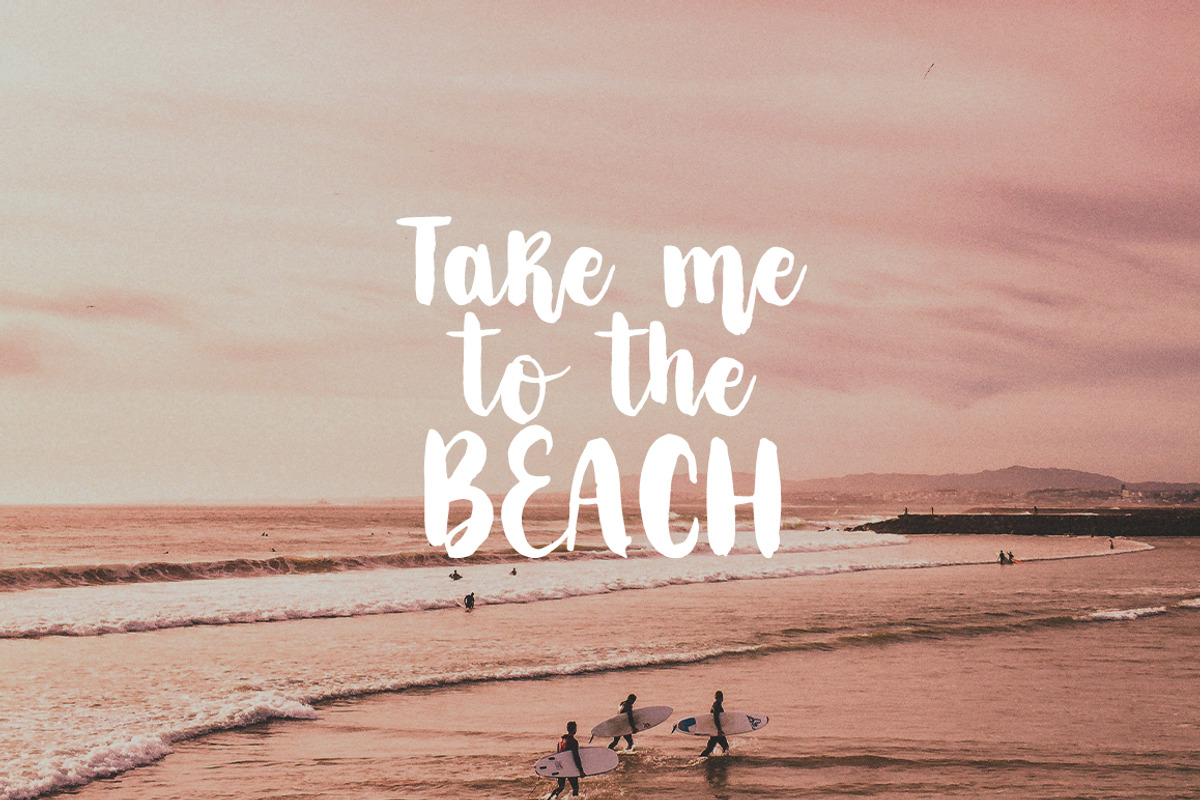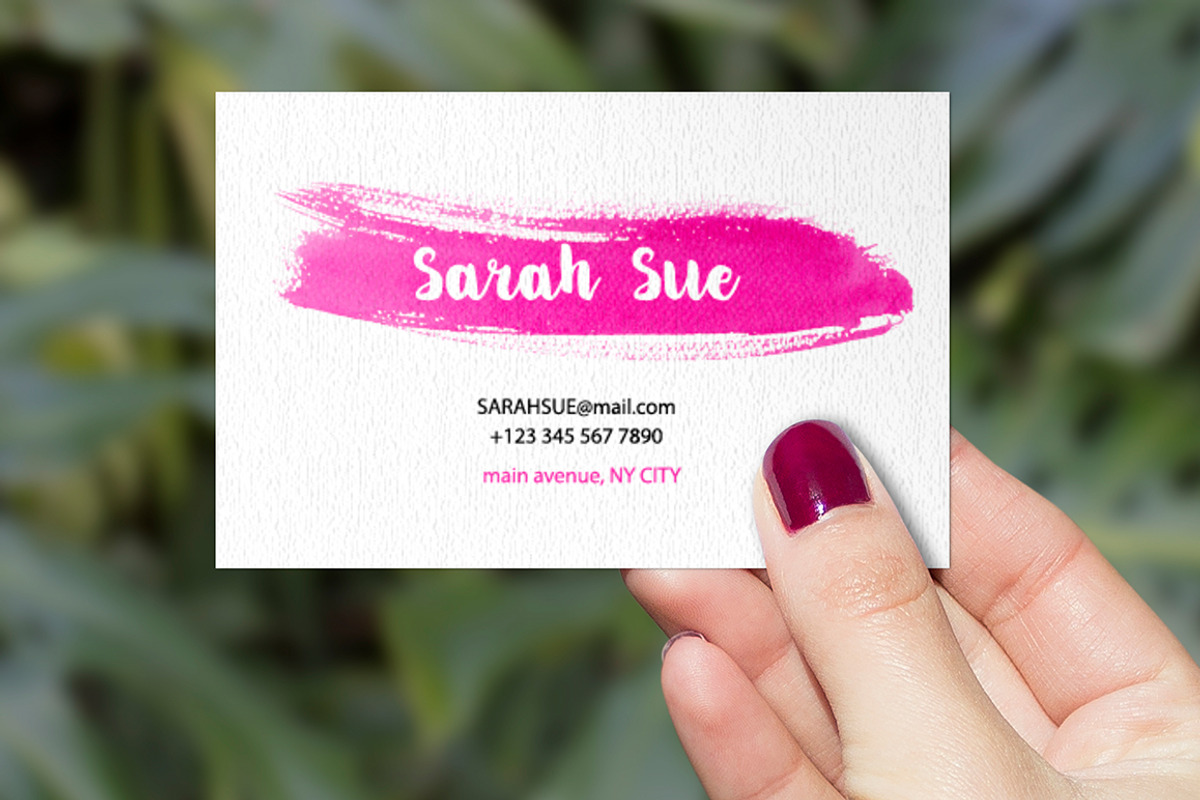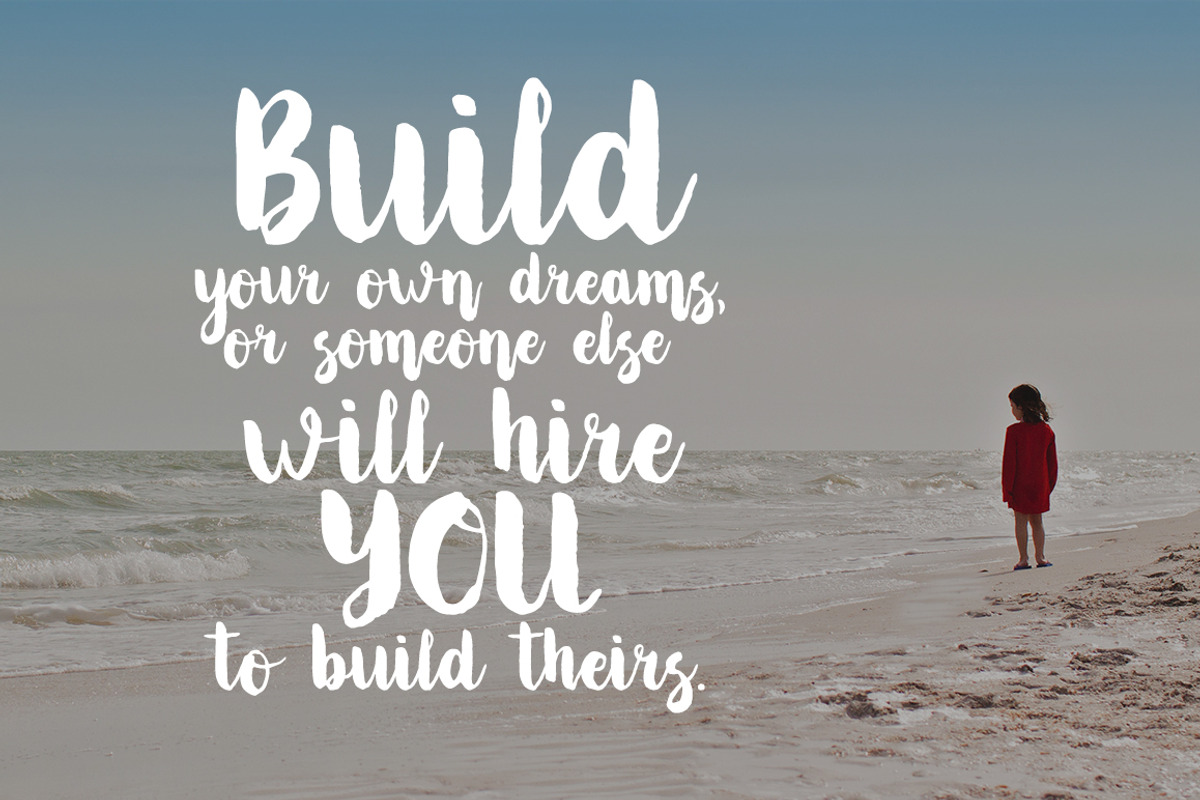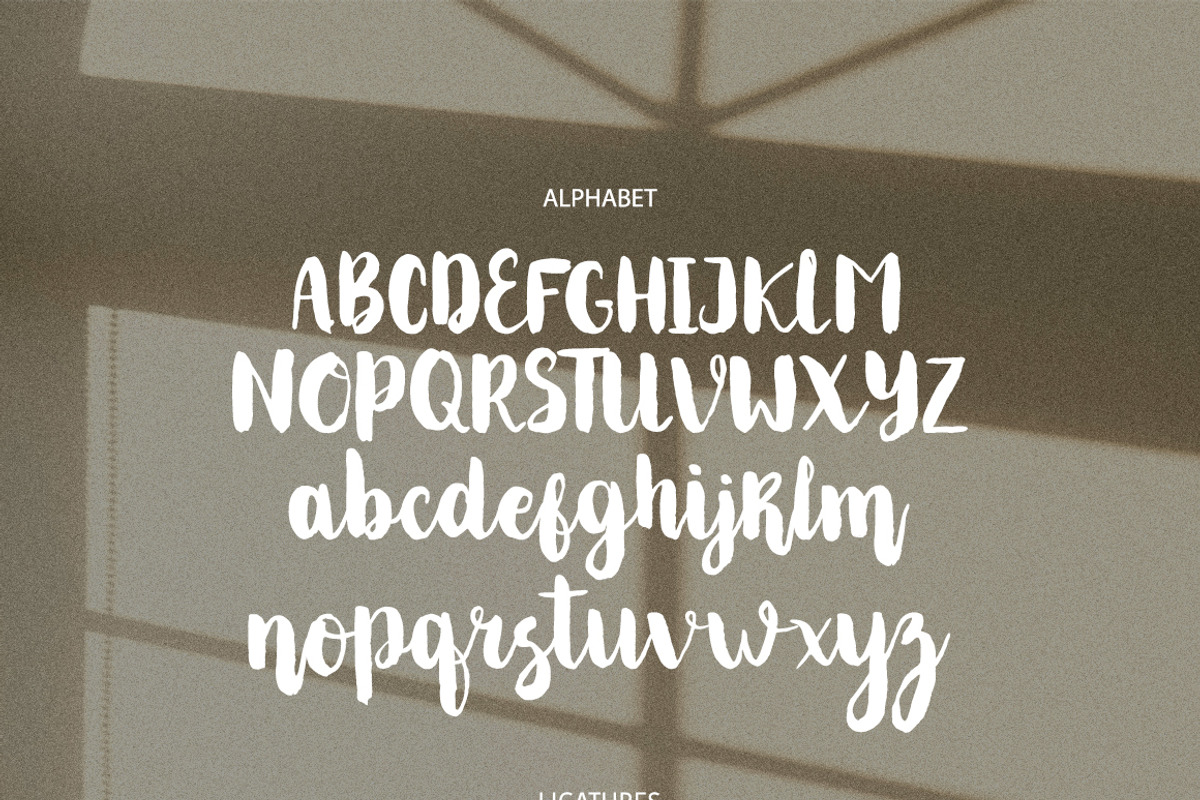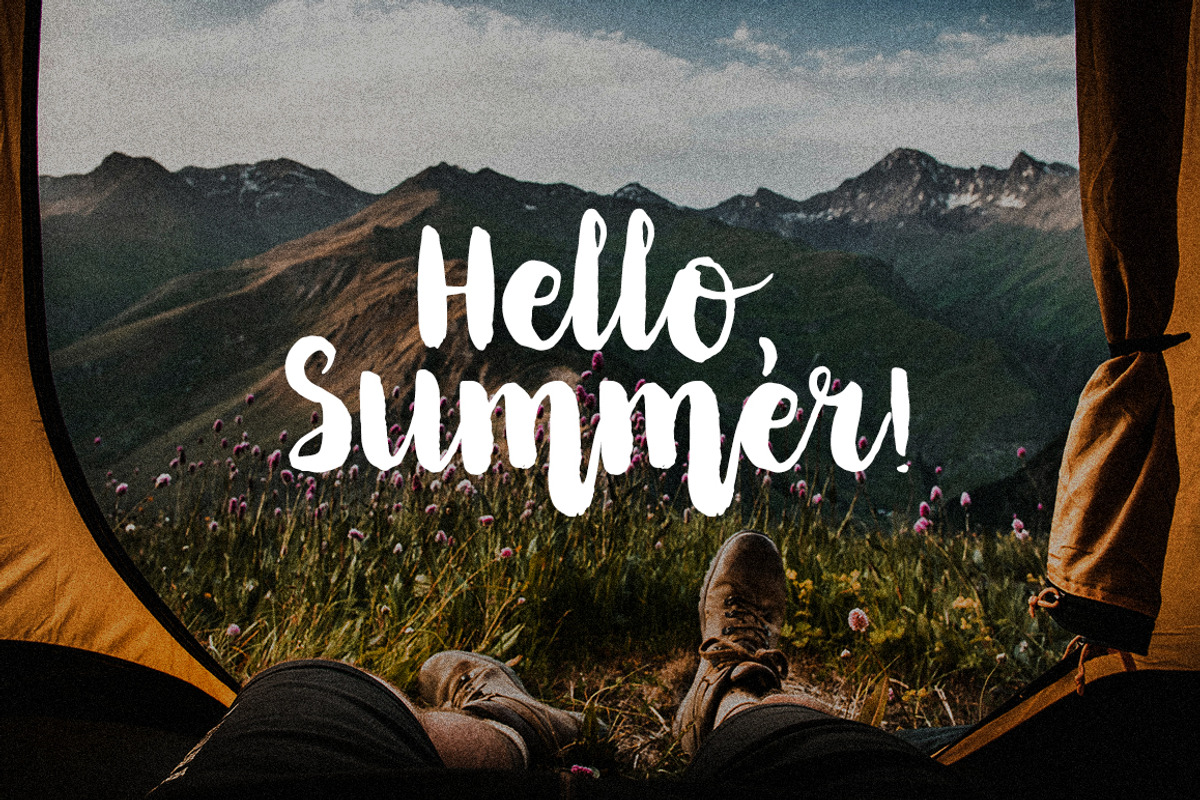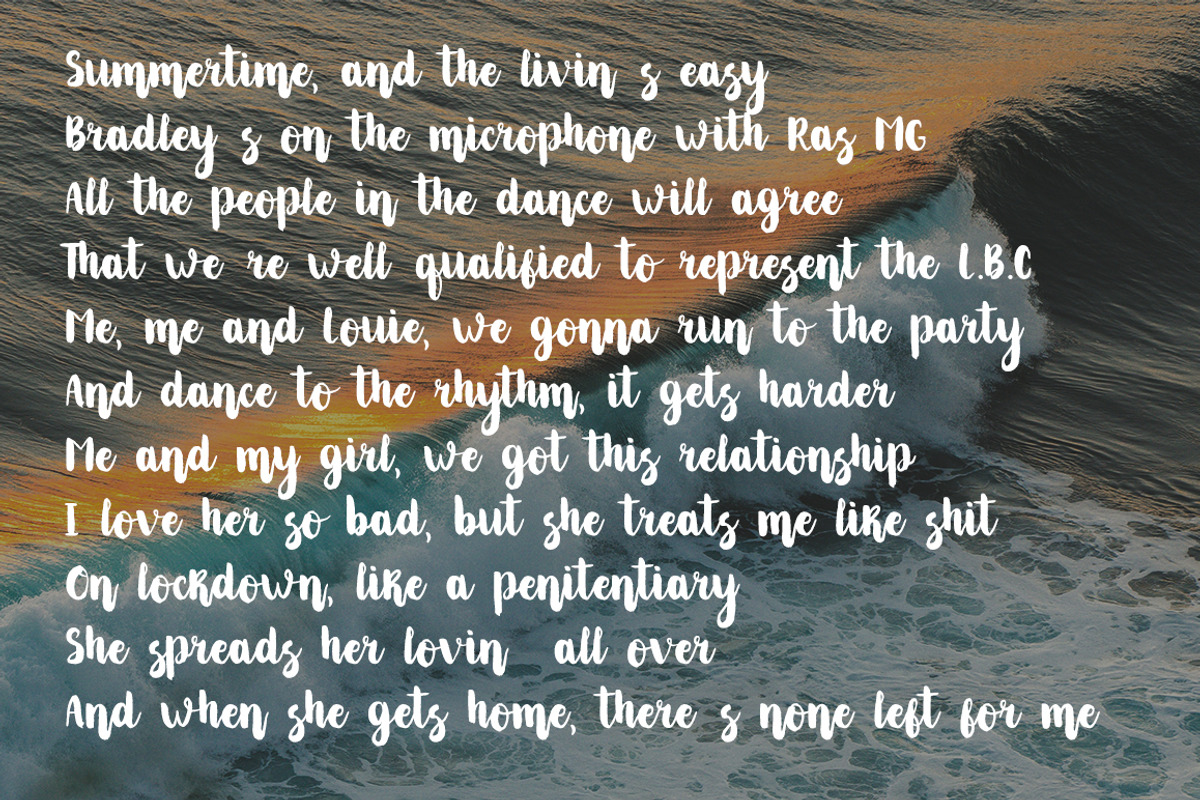
Goldberry brush hand-drawn font
Goldberry brush hand-drawn font by BilberryCreates is a font selected for branding, posters, packaging, typography.
Why Goldberry brush hand-drawn font is worth a look
Goldberry brush hand-drawn font by BilberryCreates fits naturally into Branding, posters, packaging, typography.